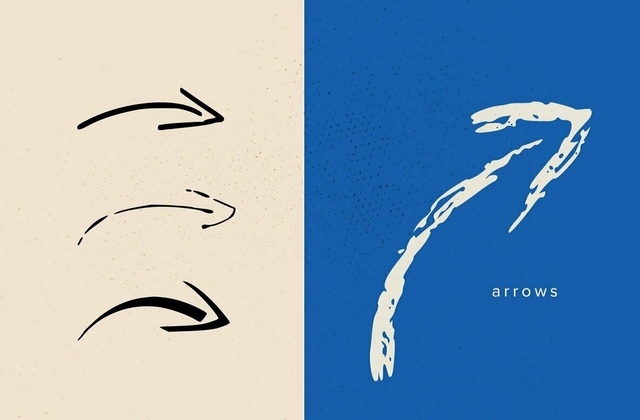
BM Graphics Arrows
This BM Graphics Arrows Font is perfect for infographic designs, navigation interfaces, directional signage systems, presentation materials, flowchart graphics, user interface elements, wayfinding projects, instructional diagrams, process visualization, and dynamic visual communication designs.
What makes this BM Graphics Arrows Font exciting is its comprehensive collection of directional elements that enhance visual communication and guide user attention effectively. The font features a complete arsenal of arrow styles, pointing indicators, and navigational symbols that create clear visual pathways and improve information hierarchy. Its functional versatility and graphic precision make it ideal for designers who need reliable directional elements for complex information design projects.
The BM Graphics Arrows Font family includes various arrow weights, styles, and directional variants with decorative and functional alternates. This comprehensive directional font family provides designers with extensive visual navigation tools to create clear, effective information graphics while maintaining consistent graphic quality throughout complex design systems.
Design agencies and UX professionals consistently choose BM Graphics Arrows Font Free Download for projects requiring clear visual direction and intuitive navigation elements. This font's distinctive graphic character perfectly captures the essential role of directional indicators in modern information design, making it invaluable for creating user-friendly interfaces and effective visual communication systems.
The functional precision of BM Graphics Arrows Font showcases carefully designed directional elements with optimized visibility and clear symbolic meaning. Its graphic consistency ensures reliable performance across all applications, from detailed interface components to large-scale environmental wayfinding systems requiring immediate visual comprehension.
Professional designers appreciate how BM Graphics Arrows Font delivers immediate clarity and directional functionality to visual communication projects. The font's graphic nature allows designers to create intuitive navigation systems and clear information hierarchies while maintaining the professional quality necessary for effective user experience and graphic design applications.
The versatile applications of BM Graphics Arrows Font extend across all contexts where visual direction and information flow are critical. Its comprehensive character set makes it particularly effective for digital interfaces, instructional materials, and presentation graphics that require clear, professional directional indicators.
Whether developing user interfaces for digital applications or creating wayfinding systems for complex environments, BM Graphics Arrows Font Free Download provides the essential directional typography that modern designers need to communicate visual pathways, information flow, and the clear navigation that defines effective contemporary graphic design and user experience excellence.